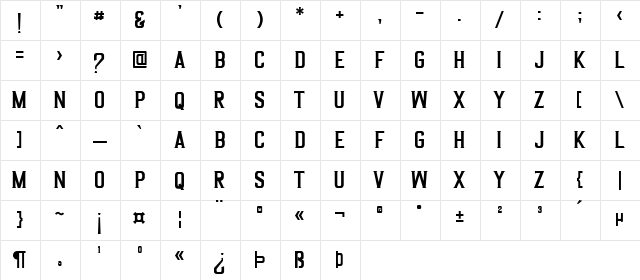
Arcana DEMO Regular
Design Context for Arcana DEMO Typeface
Arcana DEMO offers clean, dependable letterforms without strong stylistic allegiance, making it a practical choice for designers who need flexibility.